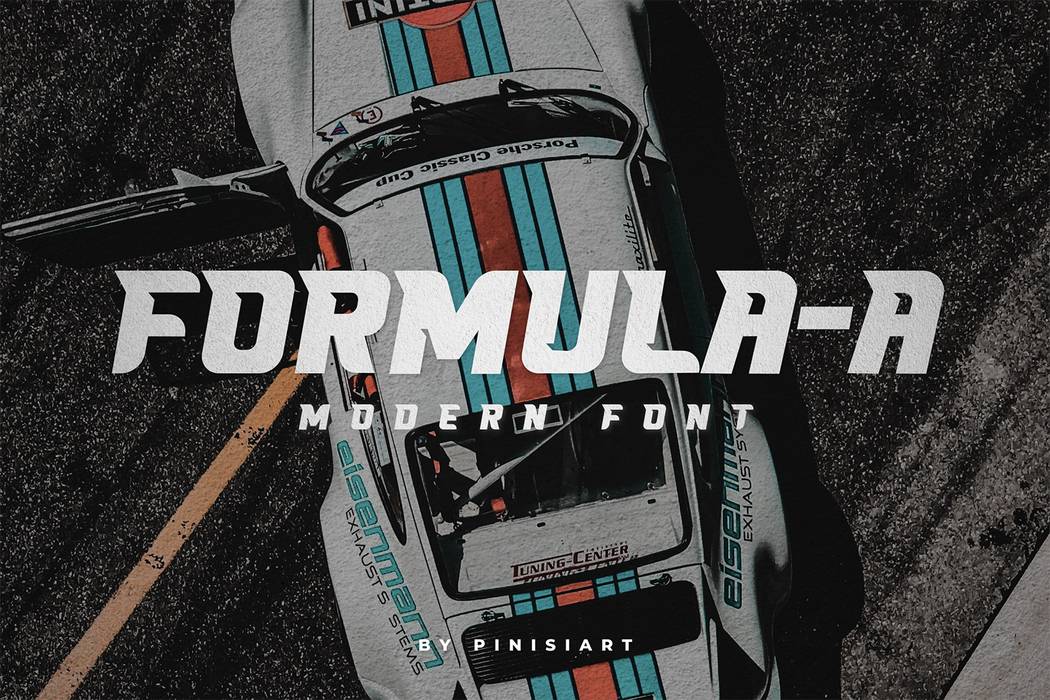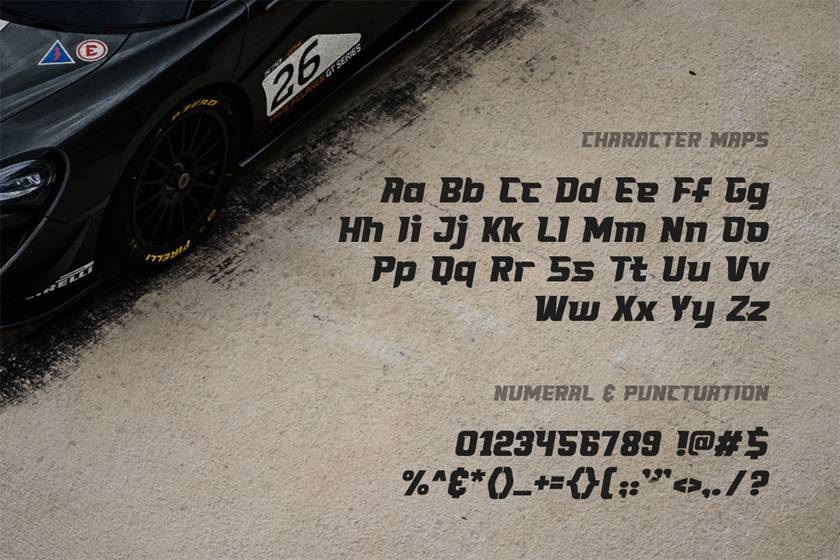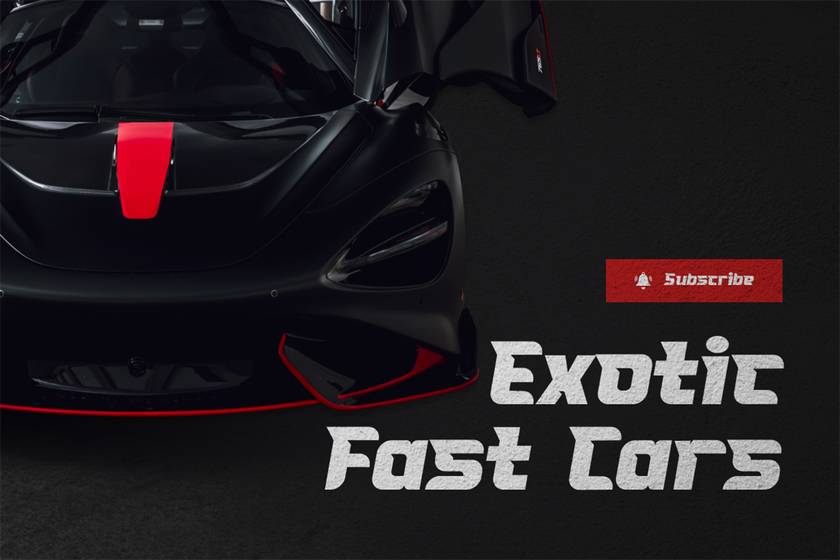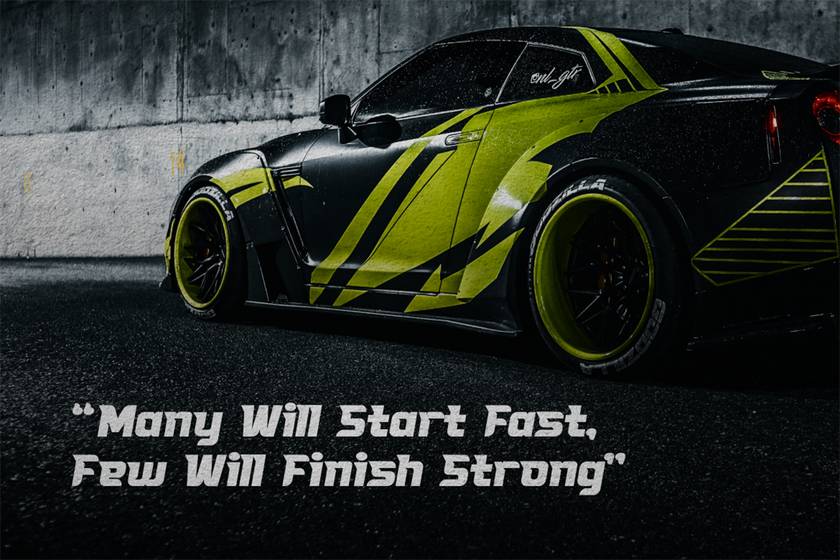
Formula A is a bold, condensed sans serif font with a strong, dynamic feel, featuring sharp angular cuts and a slight italic slant that evokes speed and motion. Its uniform stroke weight and geometric shapes make it ideal for sporty, modern designs such as automotive branding, racing posters, and dynamic headlines. This font’s energetic style communicates power and precision, making it perfect for projects that require a bold and impactful typographic statement.
Formula A Font